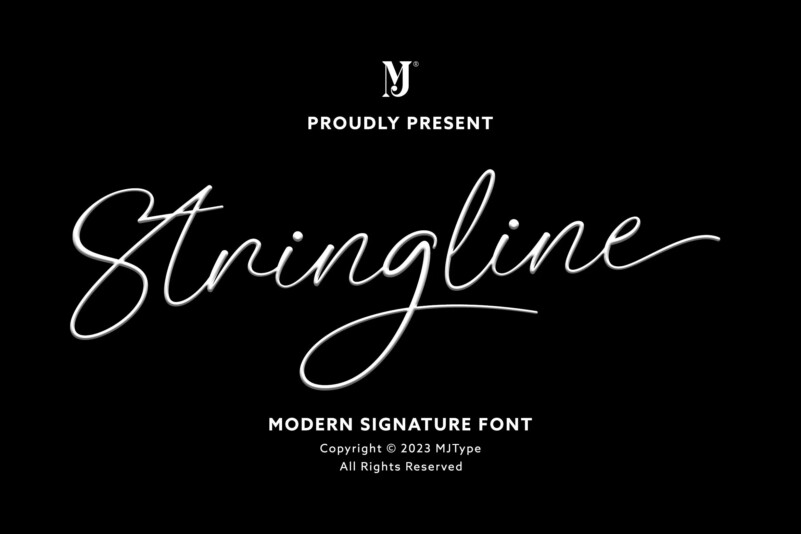
Stringline Font
Stringline Font is a sweet handwritten font that has a sassy modern style to create the most beautiful design projects. Stringline lends itself perfectly to handwritten quotes, signature-style logos, stylish branding projects, and hand-crafted product & stationery designs. This font is PUA encoded which means you can access all of the glyphs and swashes with ease!